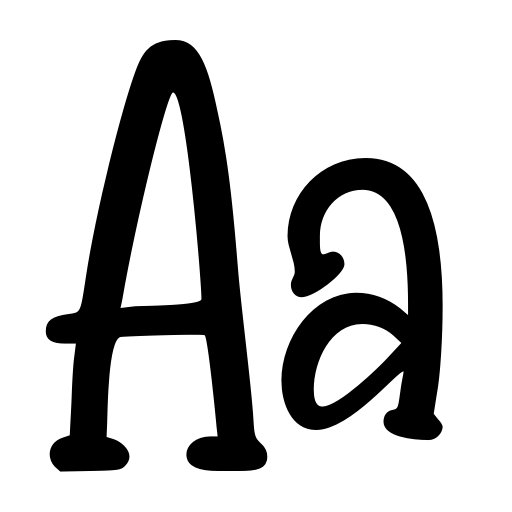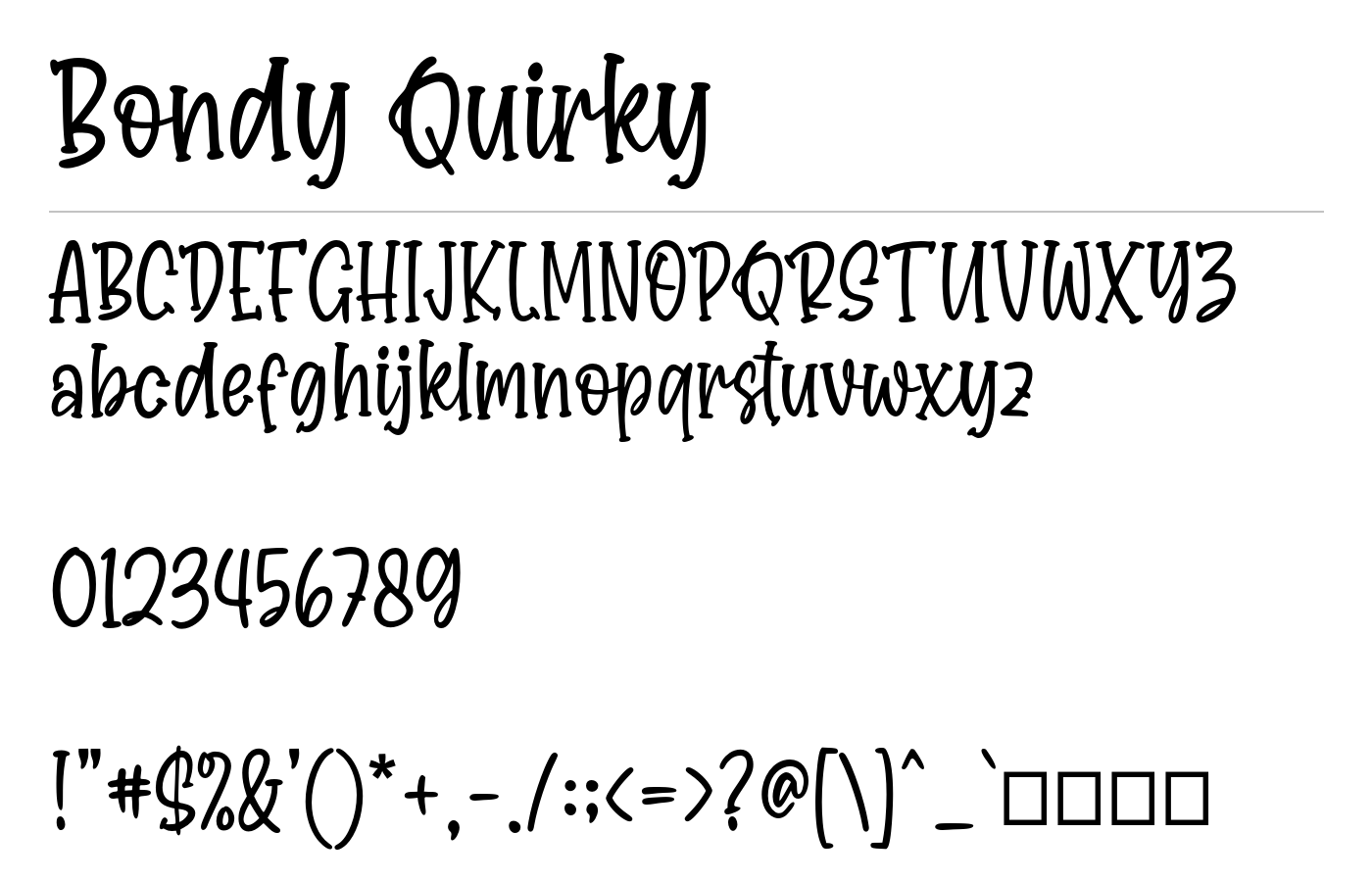
Bondy Quirky is a playful, hand-drawn sans serif font with a casual, friendly vibe. Its upright letterforms feature lively, irregular strokes and whimsical details that give it a unique, approachable personality perfect for informal designs, children's projects, and creative branding. This font works well in headlines, logos, and packaging where a fun, personal touch is needed.
Bondy Quirky Font
About Bondy Quirky Font
| Font family | Bondy Quirky Font |